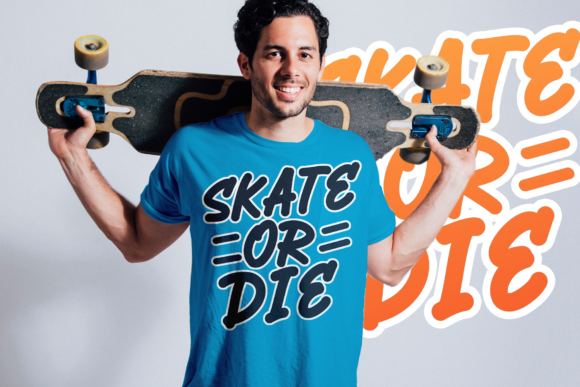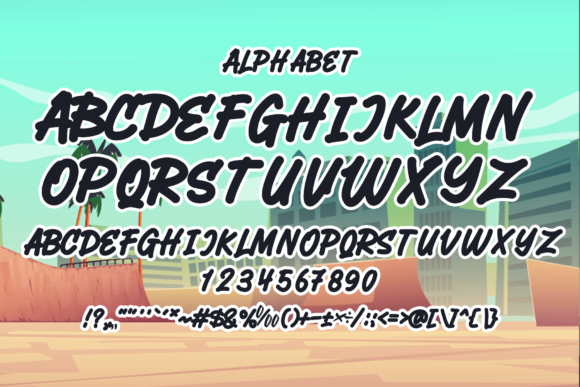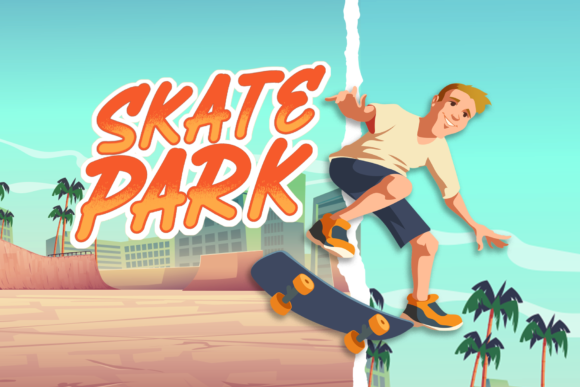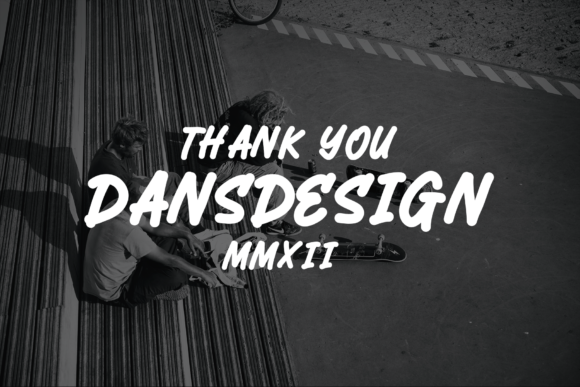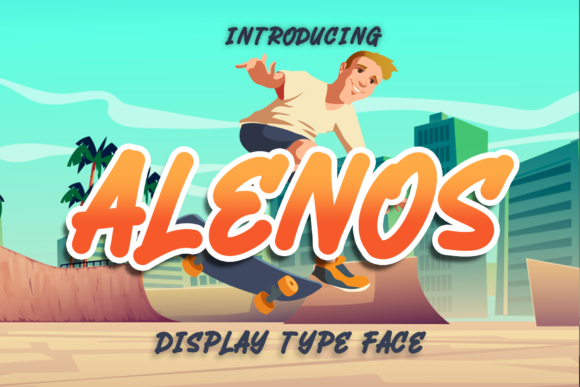
Introducing Alenos Font: The Fun and Quirky Display Font for Your Creative Projects
Are you looking for a font that can add a touch of joy and playfulness to your designs? Look no further than Alenos Font! This fun and quirky display font is perfect for a wide range of creative projects, from cartoon-related designs and children’s games to quotes, titles, brand names, book covers, posters, and more.
What Makes Alenos Font So Special?
Alenos Font is a unique and eye-catching font that is sure to grab attention. Its fun and quirky design makes it perfect for projects that require a playful and lighthearted touch. The font is highly versatile and can be used for a variety of purposes, from creating engaging children’s content to designing eye-catching posters and flyers.
Perfect for Cartoon-Related Designs and Children’s Games
If you’re working on a project related to cartoons or children’s games, Alenos Font is an excellent choice. The font’s playful design is reminiscent of classic cartoons and games, making it perfect for creating engaging and fun content for kids. Whether you’re designing a character’s dialogue bubble or creating a title for a children’s book, Alenos Font is sure to bring a smile to your audience’s faces.
Great for Quotes, Titles, and Brand Names
Alenos Font is not just limited to cartoon-related designs and children’s games. The font is also great for creating eye-catching quotes, titles, and brand names. Its unique design makes it perfect for adding a touch of personality to your text, whether you’re creating a social media post, a book cover, or a marketing campaign.
Use Alenos Font for Book Covers and Posters
If you’re a self-published author or a designer looking to create eye-catching book covers and posters, Alenos Font is an excellent choice. The font’s bold and playful design makes it perfect for grabbing attention and standing out from the crowd. Whether you’re promoting a new book or creating a poster for a movie or event, Alenos Font is sure to make your design pop.
Why Designers and Crafters Love Alenos Font
Designers and crafters love Alenos Font for its versatility and ease of use. The font is highly legible and can be used for a wide range of projects, from digital designs to print materials. Additionally, the font is easy to pair with other fonts, making it perfect for creating unique and visually appealing designs.
Tips for Using Alenos Font
Here are some tips for using Alenos Font in your designs:
- Use Alenos Font as a title font to add a touch of playfulness to your design.
- Pair Alenos Font with a serif font for a unique and visually appealing combination.
- Use Alenos Font for body text in children’s content or games to create a fun and engaging reading experience.
In conclusion, Alenos Font is a fun and quirky display font that is perfect for a wide range of creative projects. Its unique design makes it perfect for adding a touch of joy and playfulness to your designs, whether you’re working on cartoon-related designs, children’s games, quotes, titles, brand names, book covers, posters, or just any creation that requires a touch of joy. With its versatility, ease of use, and highly legible design, Alenos Font is a great choice for designers and crafters looking to add some fun and personality to their projects.